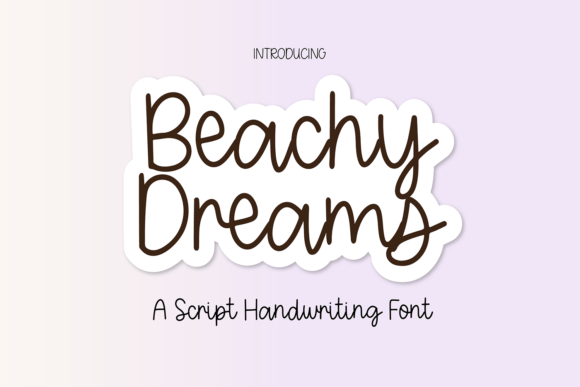
Beachy Dreams Font: The Ultimate Cute Script Cursive Handwriting Font for Your Creative Projects
Are you looking for a font that captures the essence of a beachy vibe? Do you want to add a touch of whimsy and playfulness to your digital creations? Look no further than the Beachy Dreams font! This adorable pen script handwriting font is perfect for social media, digital planning, branding, crafts, and more. In this article, we’ll dive into the features and benefits of Beachy Dreams, and explore how you can use it to elevate your creative projects.
What is Beachy Dreams Font?
Beachy Dreams is a cute script cursive handwriting font that is designed to evoke the carefree and relaxed feel of a beach vacation. This font is perfect for anyone who loves the ocean and wants to bring a touch of that laid-back vibe to their digital creations. With its flowing script and playful letterforms, Beachy Dreams is sure to add a smile to your audience’s face.
Key Features of Beachy Dreams Font
- Upper and Lowercase Glyphs: Beachy Dreams includes a full set of upper and lowercase glyphs, making it perfect for writing sentences and paragraphs.
- Numbers and Punctuation Marks: This font also includes numbers and basic punctuation marks, so you can use it for a wide range of creative projects.
- Cute and Playful: Beachy Dreams has a distinctly playful and whimsical feel, making it perfect for crafts, invitations, and other creative projects.
- Perfect for Digital Planning: This font is optimized for digital use, making it perfect for GoodNotes, digital planners, and other digital creations.
Uses for Beachy Dreams Font
Beachy Dreams is an incredibly versatile font that can be used for a wide range of creative projects. Here are some ideas to get you started:
10 Creative Ways to Use Beachy Dreams Font
- Social Media Graphics: Use Beachy Dreams to create eye-catching social media graphics that showcase your brand’s personality.
- Digital Planning: Add a touch of whimsy to your digital planners and GoodNotes with Beachy Dreams.
- Branding: Use Beachy Dreams as a font for your brand’s logo or marketing materials to add a playful touch.
- Crafts and Decor: Beachy Dreams is perfect for crafting and decor projects, such as making signs, banners, and other DIY decorations.
- Invitations: Use Beachy Dreams to create adorable invitations for parties, weddings, and other special events.
- Blogging: Add a touch of personality to your blog posts with Beachy Dreams.
- Email Newsletters: Use Beachy Dreams to create eye-catching email newsletters that stand out.
- Printable Art: Create printable art, such as quotes, posters, and wall art, using Beachy Dreams.
- Stickers and Labels: Use Beachy Dreams to create cute stickers and labels for your digital or physical projects.
- Web Design: Beachy Dreams can even be used in web design to add a playful touch to your website.
Why Choose Beachy Dreams Font?
With so many fonts available, why choose Beachy Dreams? Here are a few reasons why this font stands out:
What Sets Beachy Dreams Apart
- Unique and Playful: Beachy Dreams has a distinctly playful and whimsical feel that will set your creative projects apart.
- Easy to Read: Despite its playful feel, Beachy Dreams is easy to read, making it perfect for digital and print use.
- Versatile: Beachy Dreams can be used for a wide range of creative projects, from social media graphics to digital planning.
- High-Quality: Beachy Dreams is a high-quality font that is designed to look great on any device.